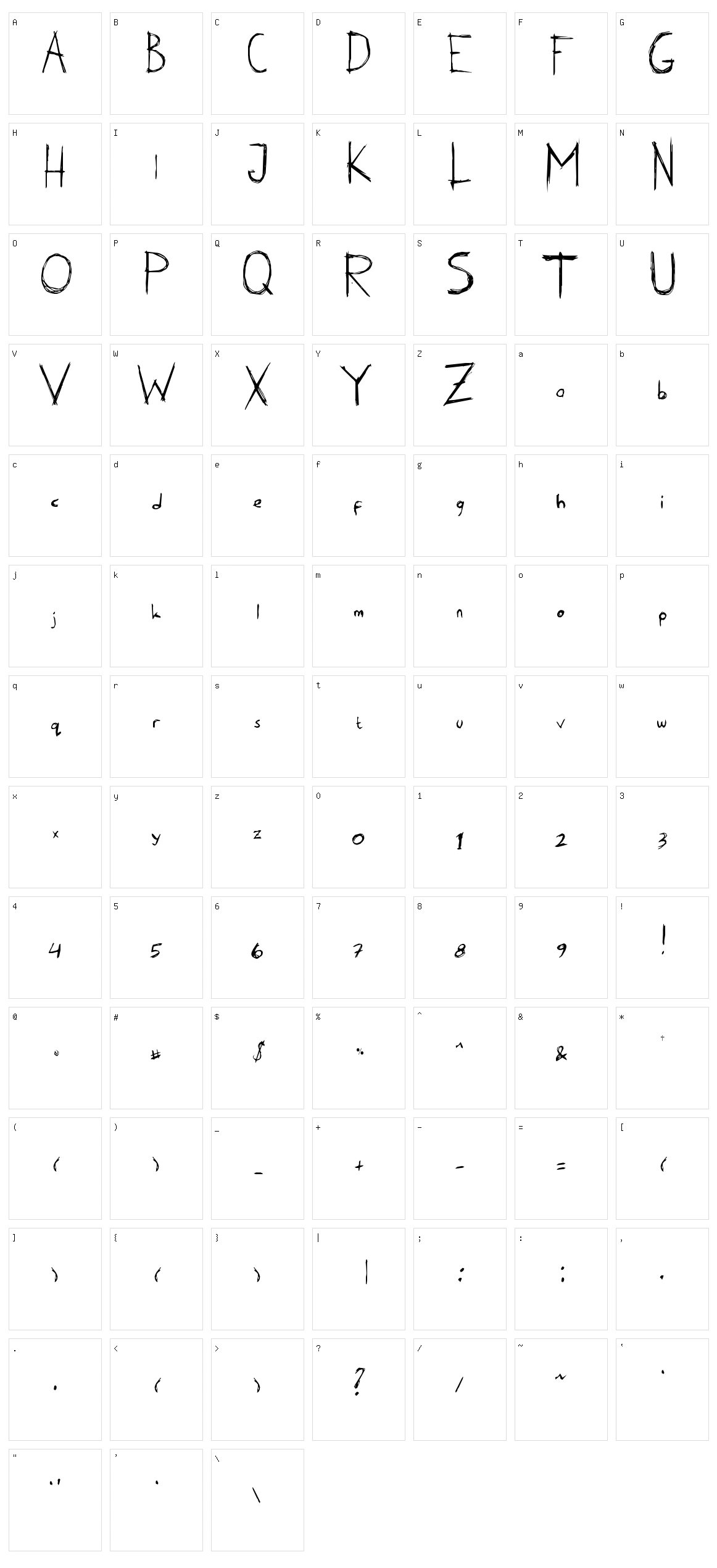
By Eric Wiryanata. oCTOBER 2006.
the name Karen was taken after Karen Koltrane. a song title from my favorite band.
also because of Karen O.
the font was created because i want to do a sketchy style myself. or some people called it Grungy style.
Note#2: This typeface is ideal for logos and general design.
It isn't very suitable to be used with word-processors as it lacks some symbols and letters.
best use in Photoshop, with a Strong Formating for the fonts.